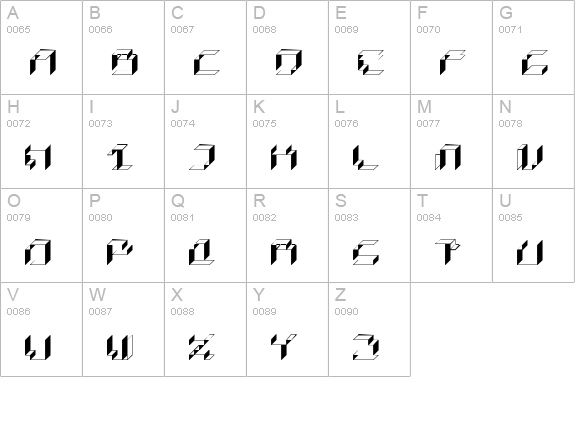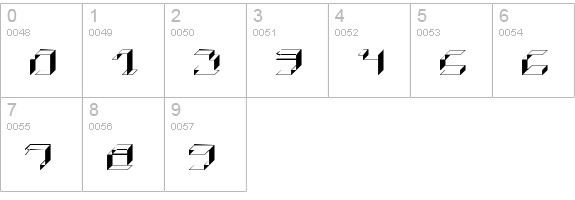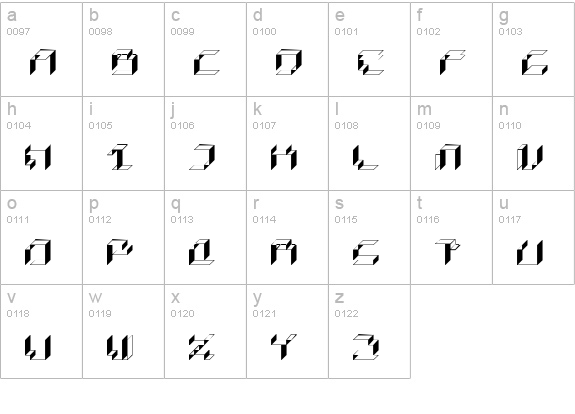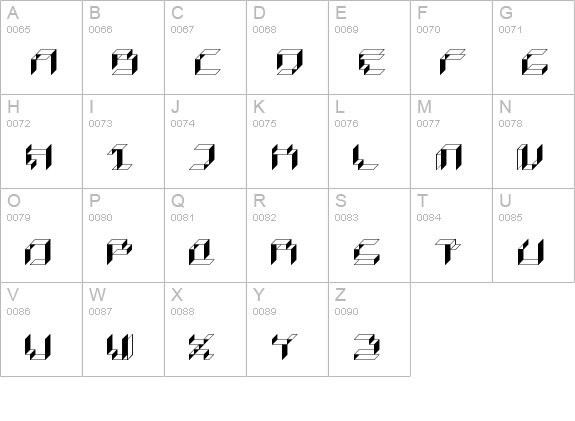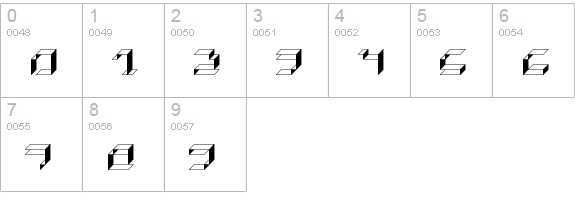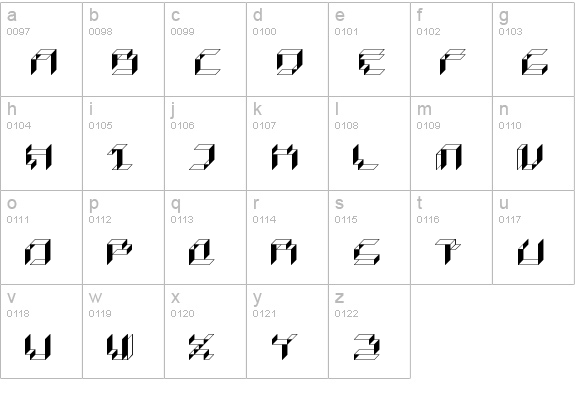
Paper Cube - Box version Font Details
Introducing the mesmerizing Paper Cube - Box version font, a unique and creative typeface that will add a touch of modernity and elegance to your designs. Crafted with precision and attention to detail, this font showcases a distinctive geometric structure with a three-dimensional twist, making it perfect for projects that require a bold and contemporary look. With its sharp edges and clean lines, Paper Cube - Box version font brings a sense of sophistication and sophistication to any design. Whether you're working on branding, packaging, posters, or social media graphics, this font will instantly elevate your creations to new heights. What sets Paper Cube - Box version font apart is its versatility. It is suitable for a wide range of design projects, from edgy and urban to sleek and minimalistic. Its bold letterforms and intricate details make it stand out from the crowd, ensuring that your message will be noticed and remembered. One of the best parts about Paper Cube - Box version font is that it is freely available to download at FontsMarket.com. This means that you can easily access and use this incredible font without any constraints or limitations. Whether you're a professional designer or a passionate hobbyist, this free font allows you to unleash your creativity without breaking the bank. So why wait? Give your designs a modern and captivating touch with Paper Cube - Box version font. Download it for free at FontsMarket.com and let your imagination run wild.